Roblox, an ever-growing online platform, allows players to create immersive virtual worlds. One of the key aspects of Roblox Studio is the ability to customize text and GUI elements.
While the Roblox logo uses a unique typeface, selecting the right font combination enhances readability and creates a professional look. Picking the right font can make a big difference in how people feel about your game’s interface, logo, or an in-game message in Roblox.
Have you ever clicked on a game to be met with cluttered, hard-to-read text? It’s frustrating, right? The wrong font choices can instantly make a game feel amateurish, while a well-thought-out pairing can boost readability, aesthetic appeal, and even player engagement.
This guide explores the best Roblox font pairings, including Builder Sans, the default Roblox font, designed by 177Studio. Combining fonts effectively ensures a better design, improved text color, and a visually appealing Roblox experience.
Why Font Pairing Matters in Roblox
Fonts aren’t just about making text look good. They shape the way players perceive your game. A sleek sans-serif font like Montserrat gives a modern feel, while a more decorative serif like Playfair Display can add sophistication. The key is to strike the right balance so your text enhances the gaming experience rather than distracting from it.
Here’s an easy way to think about it: Fonts in your game are like characters in a story. You wouldn’t pair a medieval knight with a futuristic cyborg, right? Similarly, you shouldn’t mix wildly different fonts that don’t complement each other.
How Fonts Affect Player Engagement
Have you ever noticed how certain games feel more immersive? A lot of that has to do with typography. Fonts contribute to the overall atmosphere of a game, subtly guiding the player’s emotions. Imagine playing a horror game where the UI uses a playful, bubbly font, an instant mood killer, right? On the other hand, a sleek, futuristic font can make a sci-fi game feel high-tech and immersive.
Typography plays a big role in accessibility, too. Some fonts are easier to read than others, especially for younger players or those with dyslexia. Thoughtful font selection ensures that all players can enjoy your game without unnecessary frustration.
Best Font Pairings For Roblox Graphics
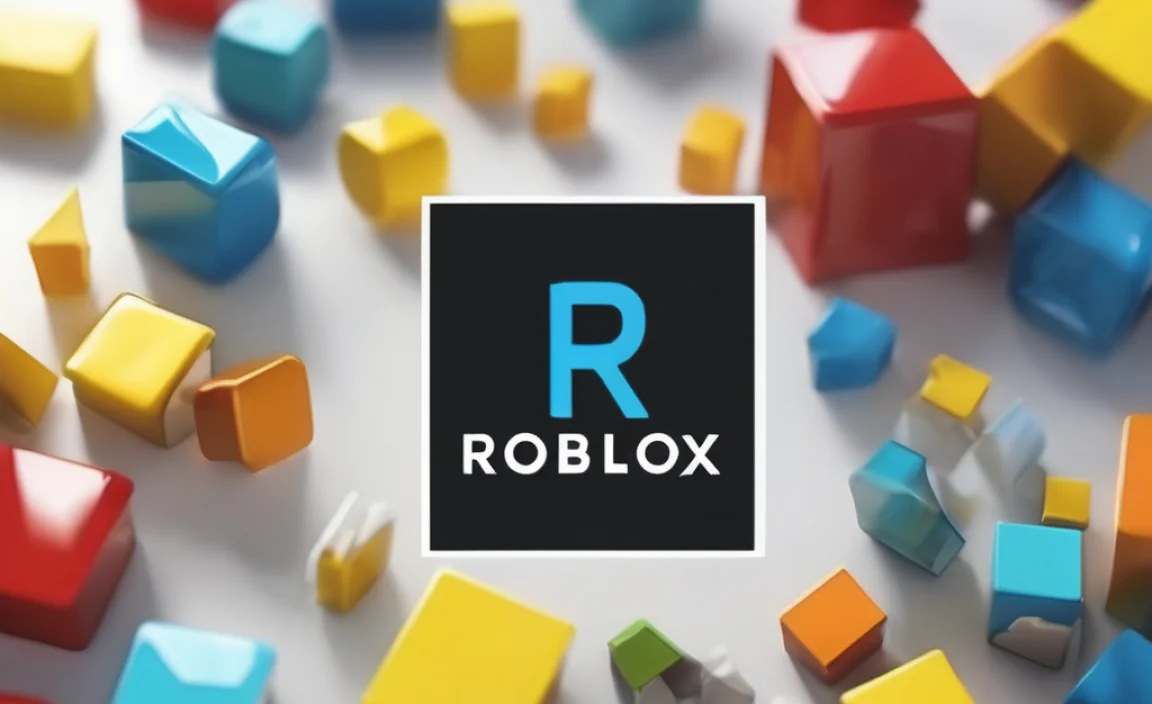
1. Builder Sans & Montserrat
Why It Works: Both are clean, modern, and ideal for professional, rich text formatting. Best Use Cases: Game menus, UI elements, and titles. Visual Impact: Montserrat enhances readability and structure, making text look sleek and polished.
Imagine a high-tech, cyberpunk-themed game. Using this pairing would give the UI a structured and futuristic feel without making it too robotic or cold.
2. Builder Sans & Regular Sans Serif (Arial, Helvetica, Open Sans)
Why It Works: Maintains clarity across different font sizes. Best Use Cases: Chat messages, tooltips, and in-game notifications.
Visual Impact: Ensures easy readability for letters, numbers, and symbols. This is a practical choice for games where communication is key. Imagine playing a tycoon game; clean and readable chat text makes the experience smoother.
3. Builder Sans & Playfair Display
Why It Works: Serif fonts like Playfair Display contrast well with geometric sans-serif styles. Best Use Cases: Story-based games and instructional text. Visual Impact: Adds elegance and a refined look, making narratives feel more immersive.
If you’re making a fantasy RPG, this combination can give your text a fairy tale feel, making dialogues and lore sections more engaging.
4. Builder Sans & Raleway
Why It Works: A stylish, slightly decorative font complements modern designs. Best Use Cases: Branding, UI elements, and promotional banners. Visual Impact: Enhances aesthetics with minimalistic appeal. Ideal for sleek, minimalistic designs, think sci-fi games or futuristic interfaces.
5. Builder Sans & Barlow
Why It Works: Readable in all font sizes, making it user-friendly. Best Use Cases: Progress bars, in-game statistics, and leaderboard text.
Visual Impact: Creates a sleek and futuristic interface. Clear leaderboard text makes it easy to see who is winning, which is great for games with competitive elements.
6. Builder Sans & Poppins
Why It Works: Shares a geometric structure for consistency. Best Use Cases: Creative designs, logos, and advertisements.
Visual Impact: Friendly, engaging, and easy on the eyes. Great for colorful, fun, cartoon-style games, think of it as the font version of a cheerful mascot.
7. Builder Sans & Roboto
Why It Works: Balanced proportions make it highly versatile. Best Use Cases: Tutorials, instructional messages, and leaderboards.
Visual Impact: Professional, clean, and structured. If your game includes a lot of instructional text, this pairing keeps things clear and digestible.
Montserrat and Poppins are excellent for titles and branding.
How Do I Change The Font Color In Roblox?
Modify the text color using scripting features in Roblox Studio.
Are There Font Restrictions In Roblox?
Yes, only certain available fonts are permitted, but custom fonts can be added.
Is It Okay To Mix Multiple Fonts In One Game?
Yes, but limit to 2-3 font families for visual consistency.
Which Font Is Best For Leaderboards?
Roboto and Montserrat work best for clear numbers and text.